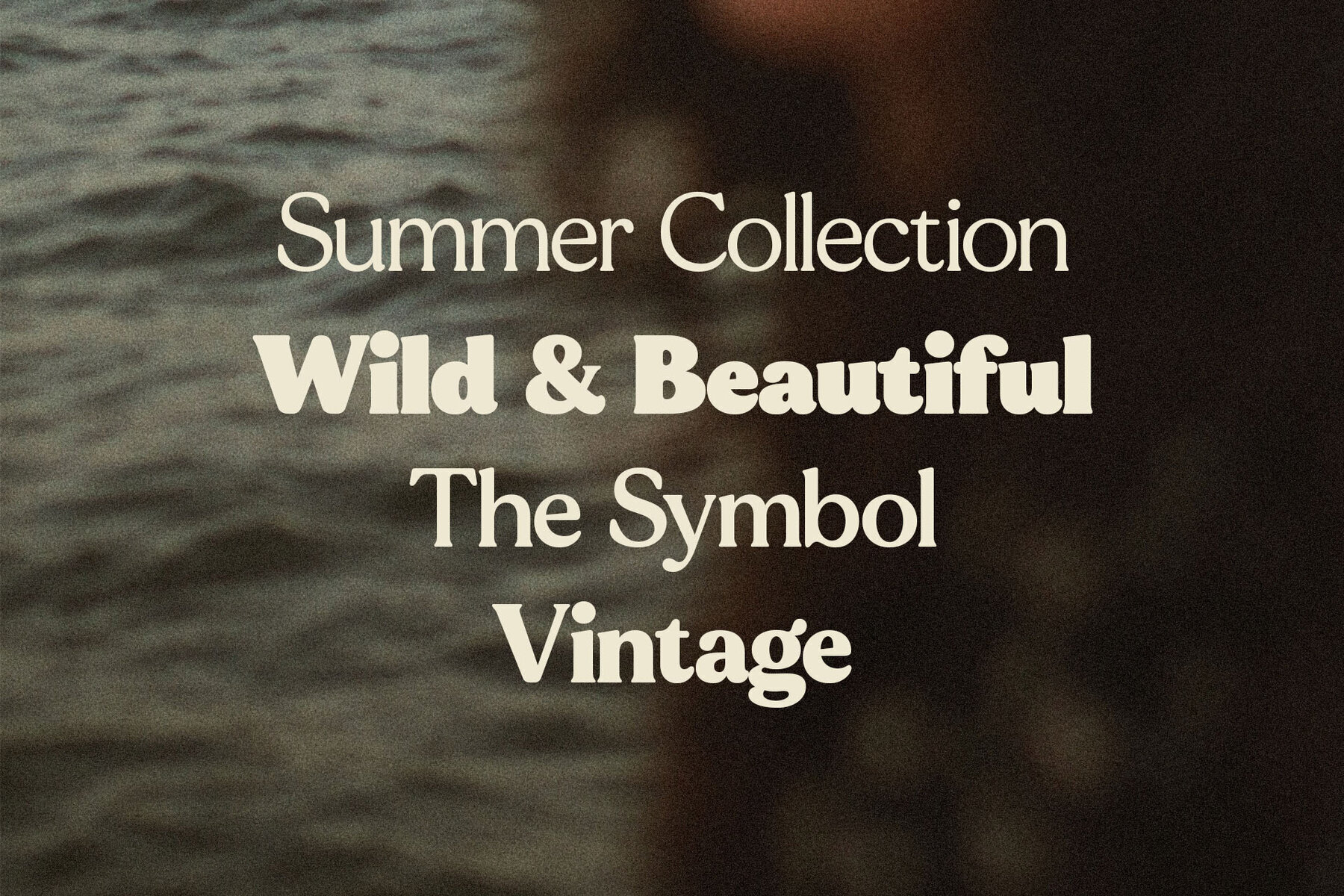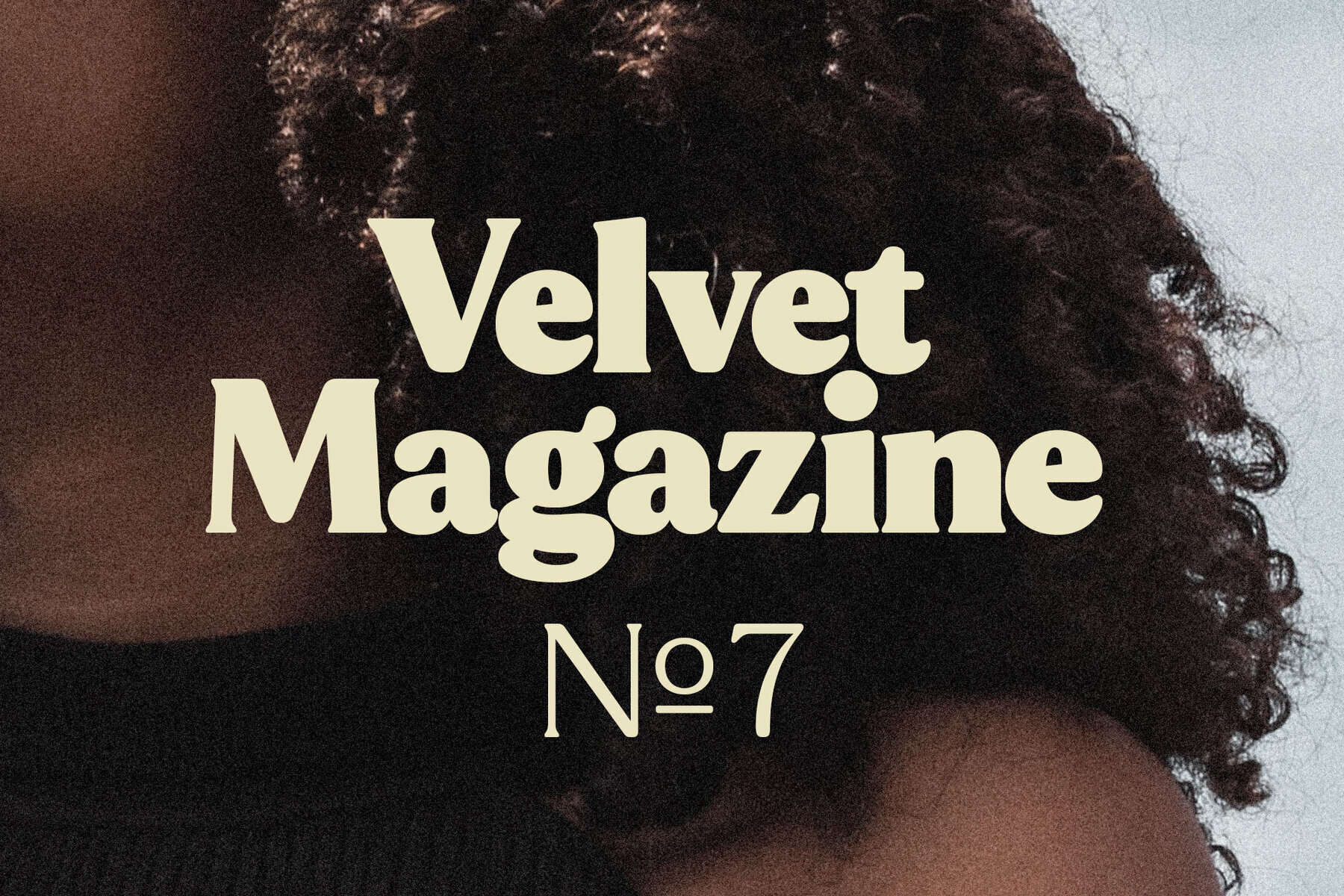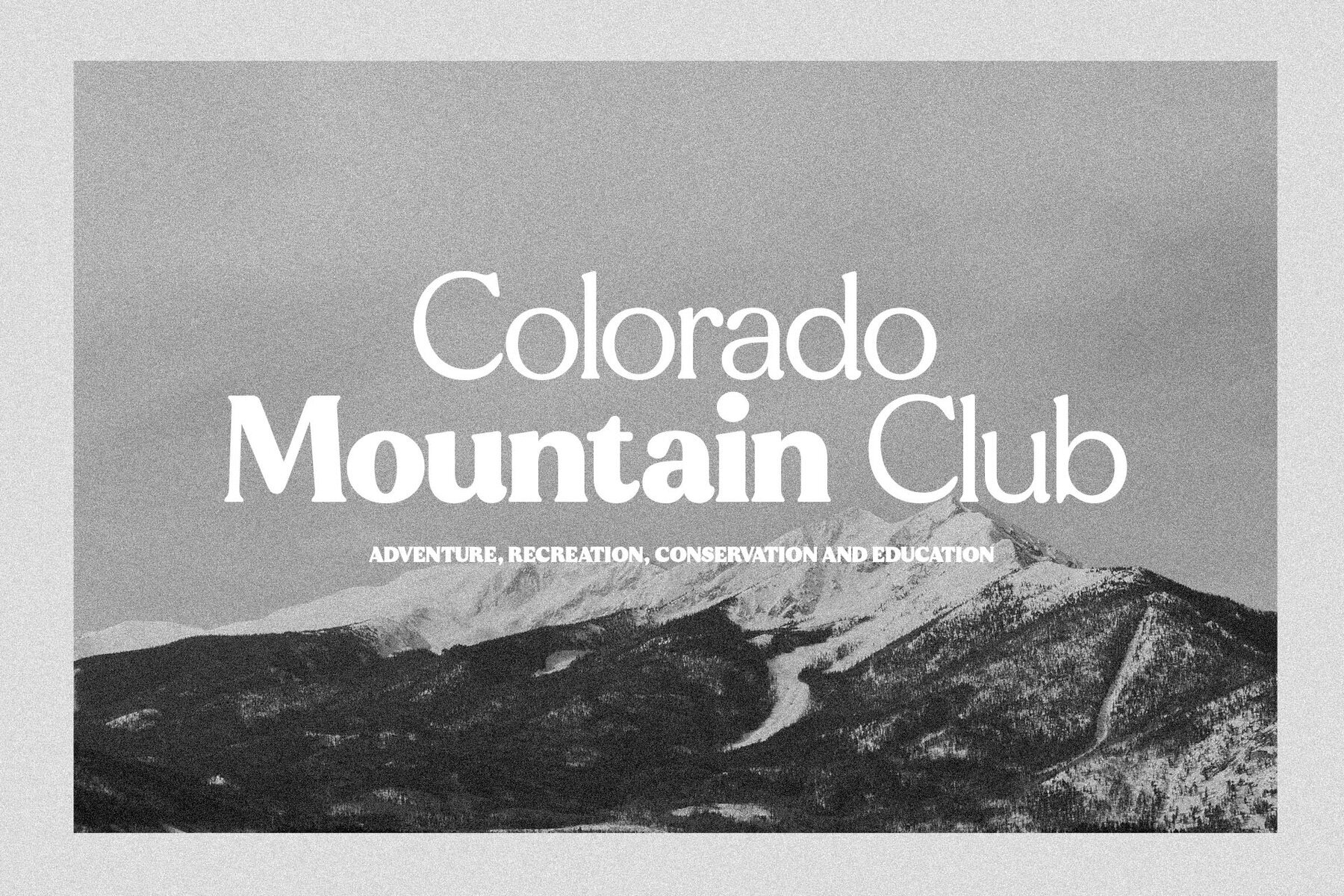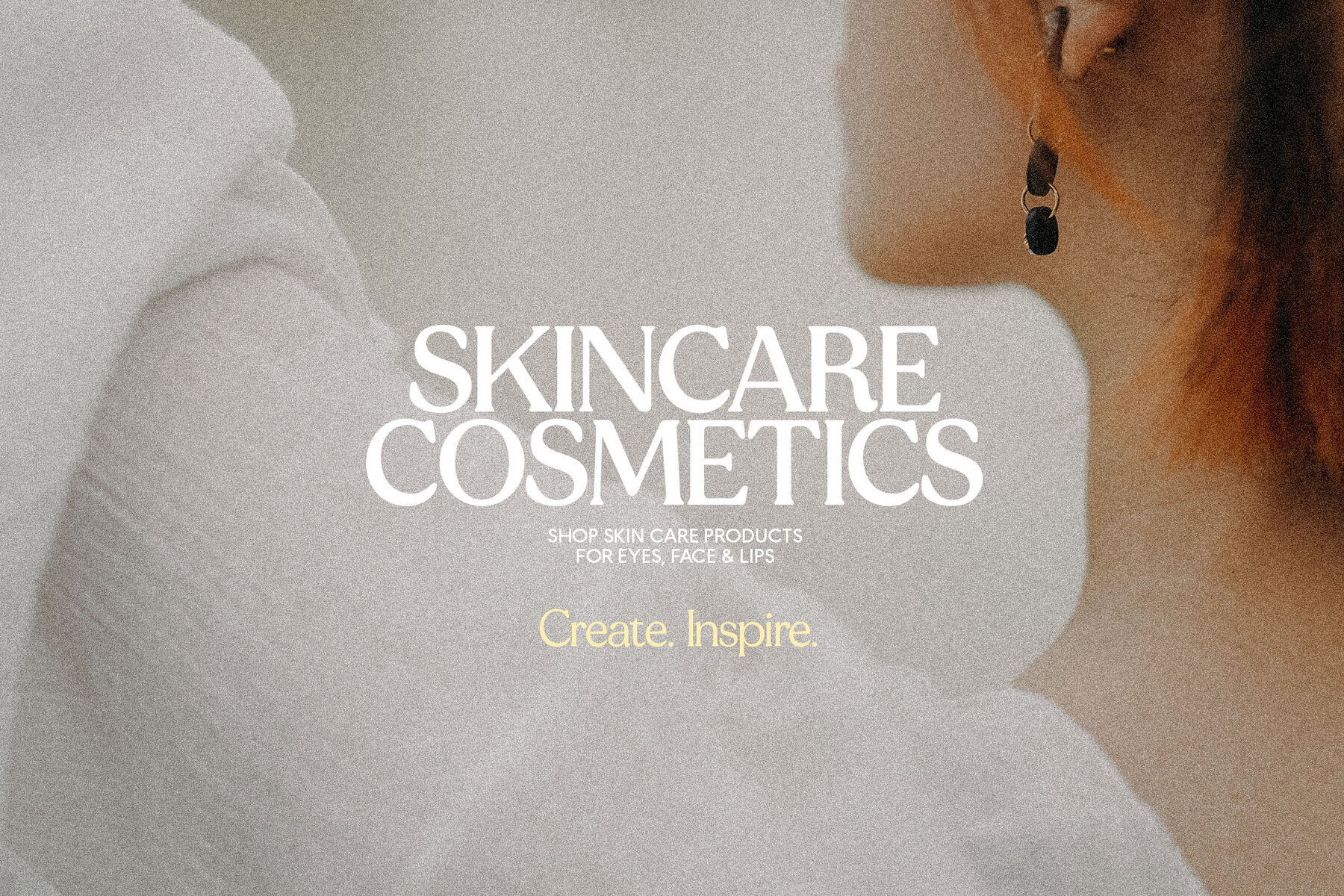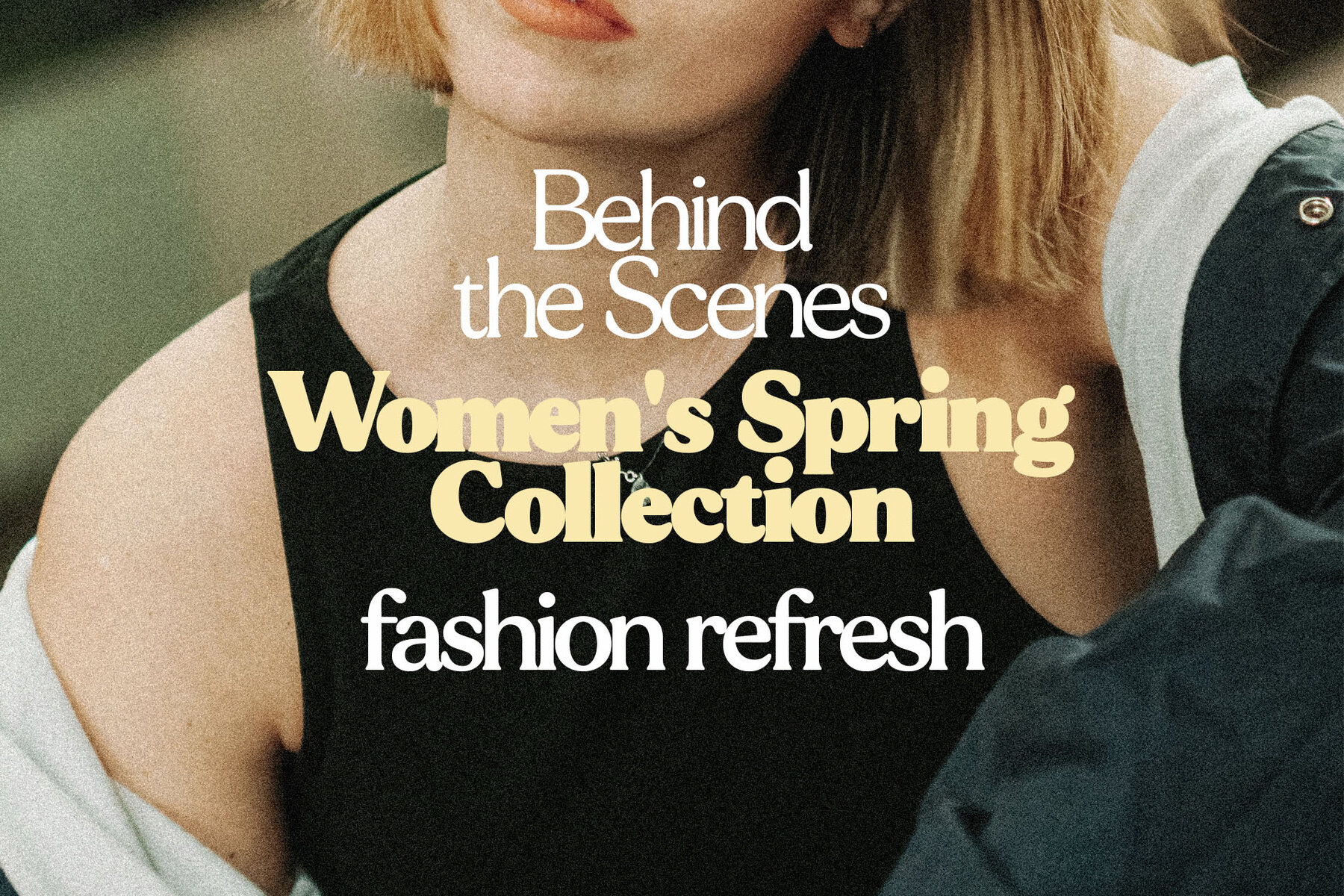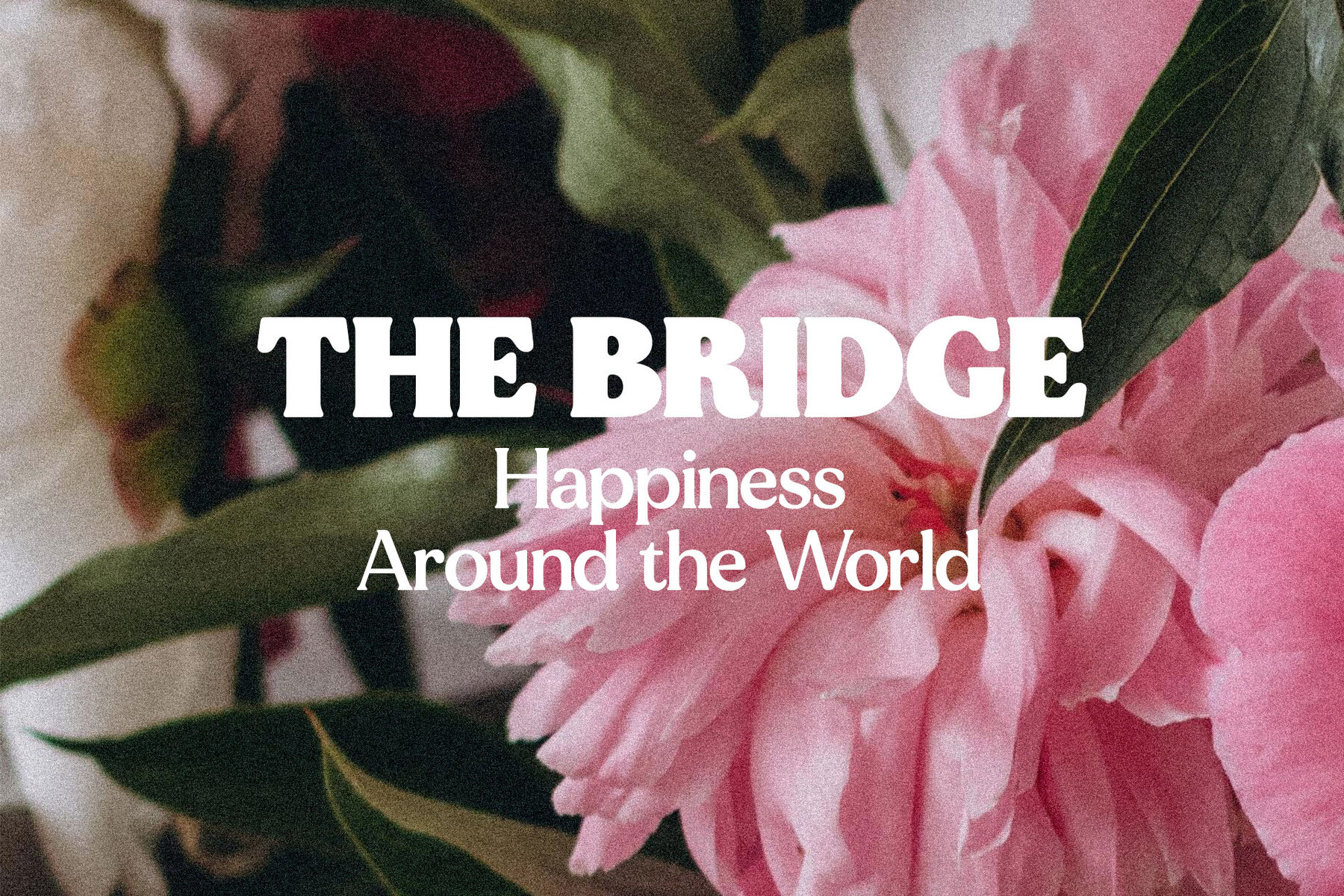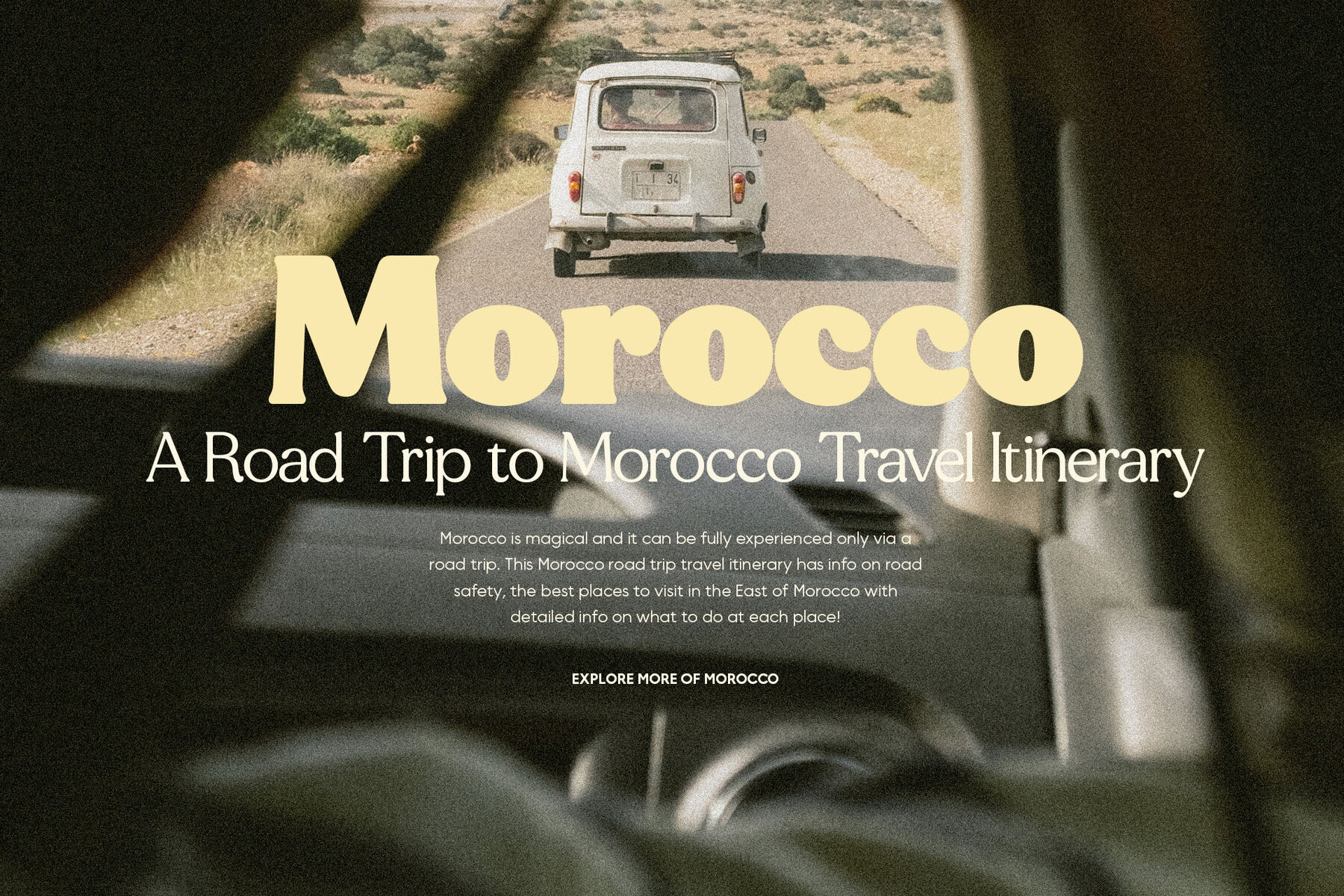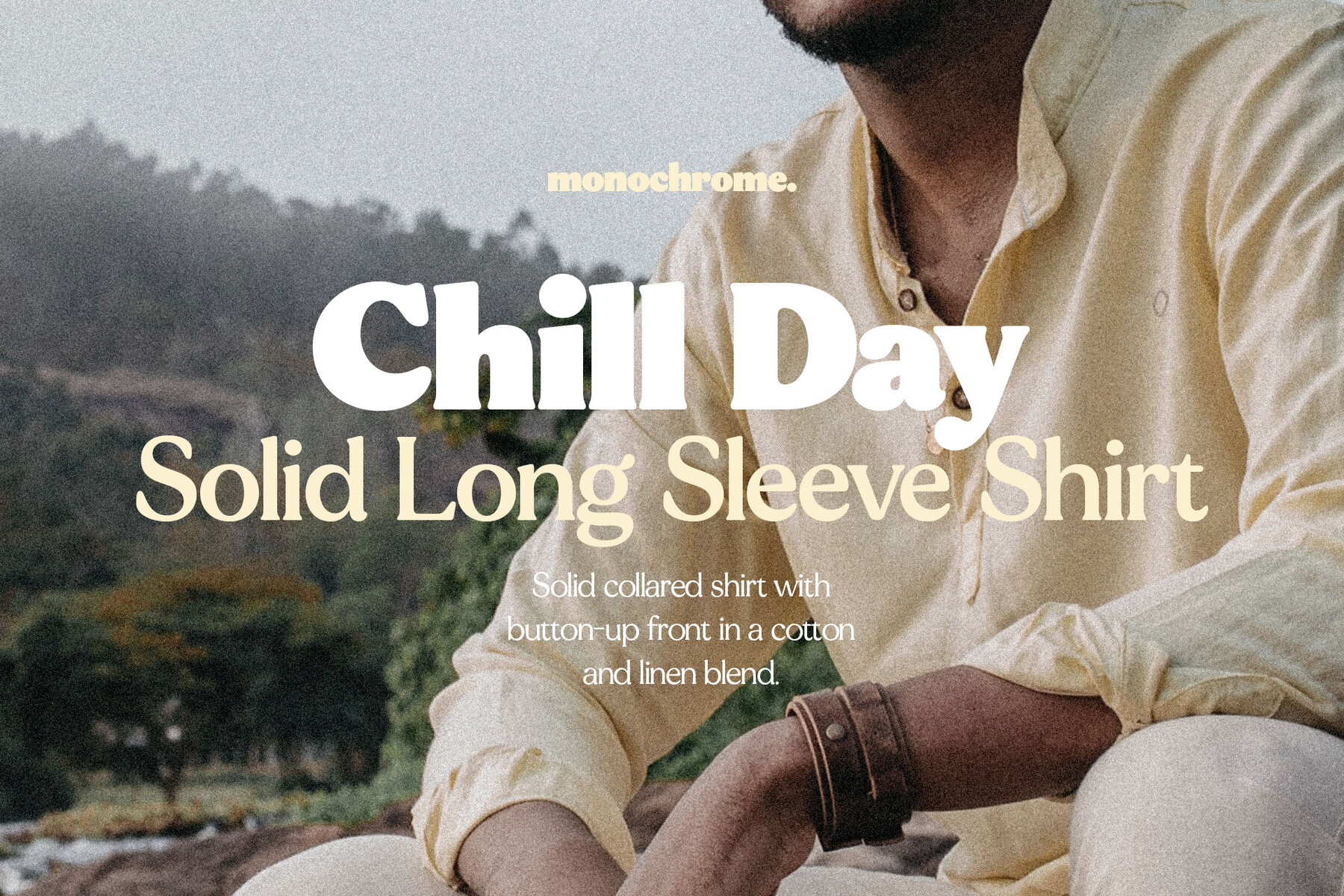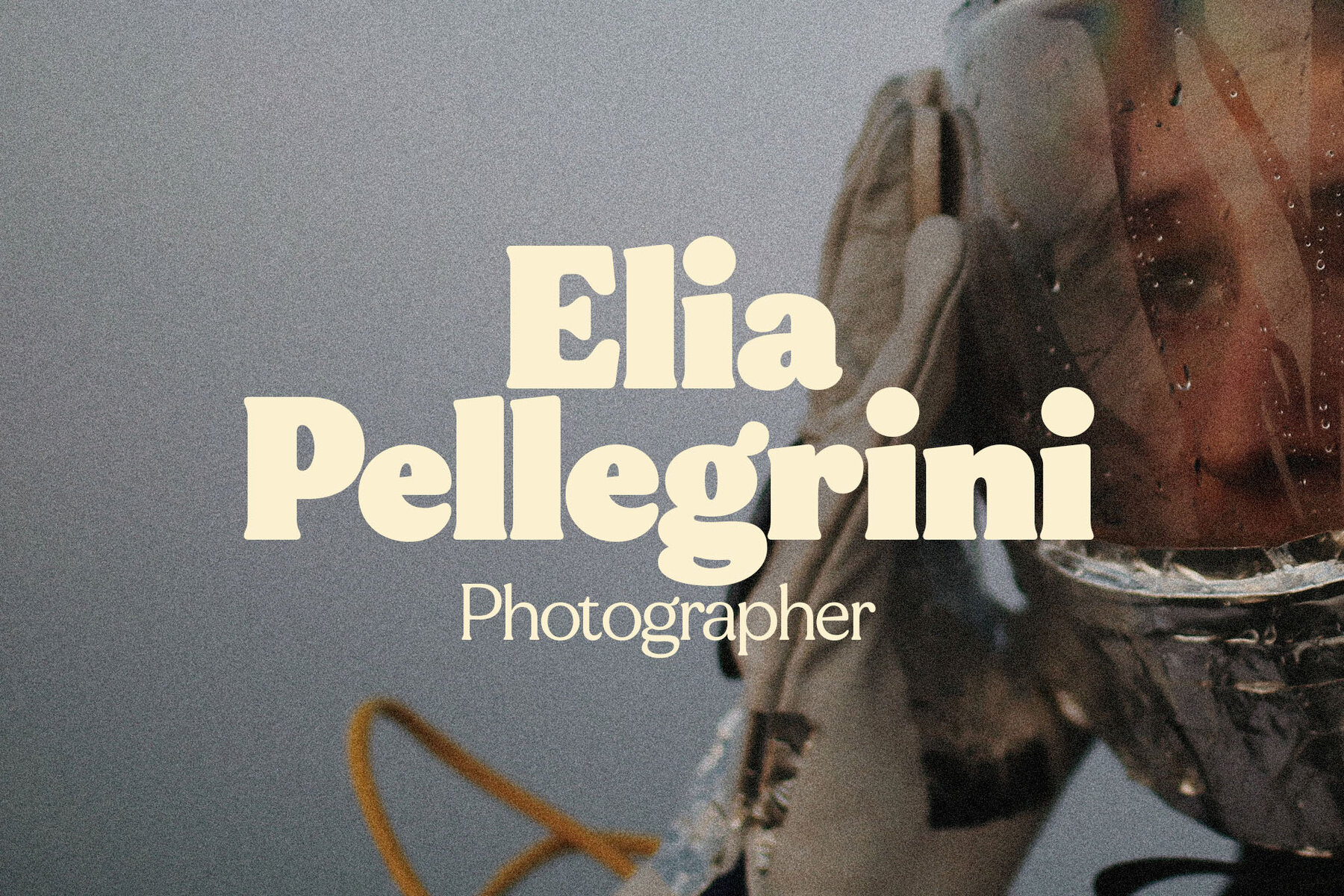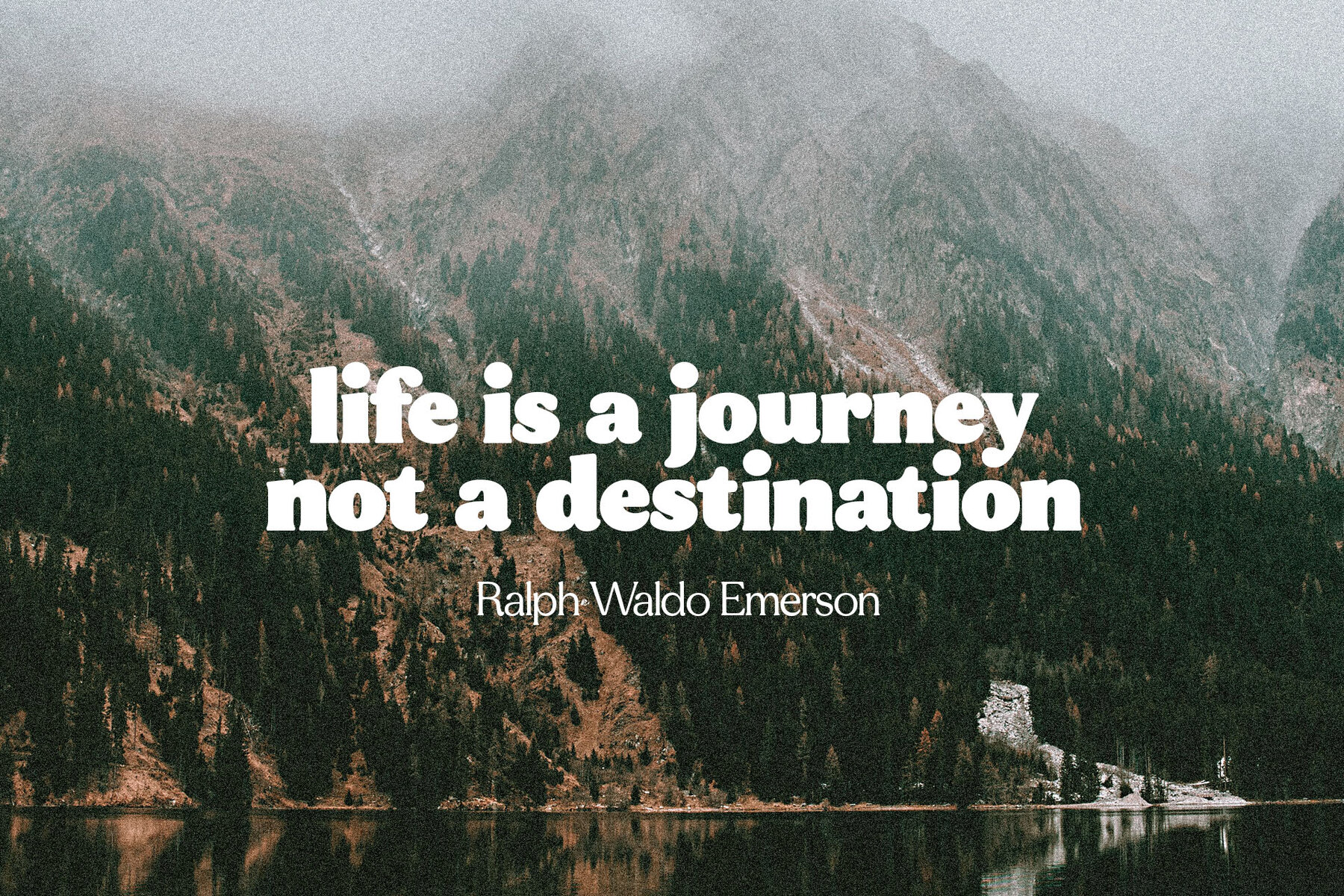
MADE Mellow: Modern Serif Typefamily
MADE Mellow embodies contemporary elegance with its modern serif design, lending itself to a variety of design projects. This typefamily strikes a balance between clean lines and subtle flourishes, making it suitable for branding, editorial design, and more.
• Adaptability – Suited for both print and digital applications.
• Refined Detail – Offers a sophisticated appeal with precise design elements.
MADE Mellow enhances your creative work by offering flexibility and style, ensuring your project stands out in a crowded landscape.